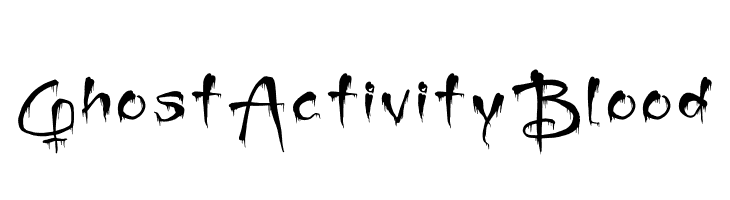
A horror-themed font with dripping, jagged letters for a spooky effect.
A spooky, dripping font with a haunting and eerie design.
A bold, jagged font with a distressed, horror-themed appearance.
A bold, dripping font perfect for spooky and horror-themed designs.
A spooky, dripping font ideal for horror-themed designs.
A bold, jagged font with a gothic, horror-inspired style.
A spooky, distressed font with jagged, dripping characters.
A bold, eerie font with jagged, dripping edges perfect for horror themes.